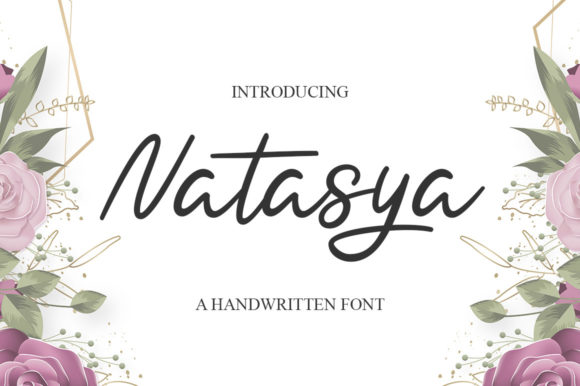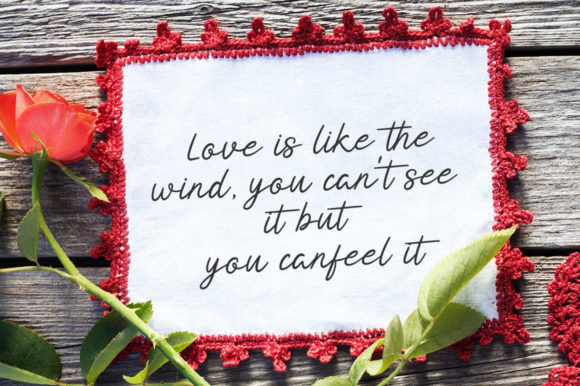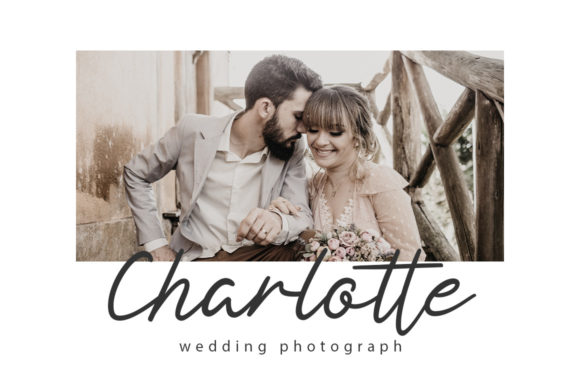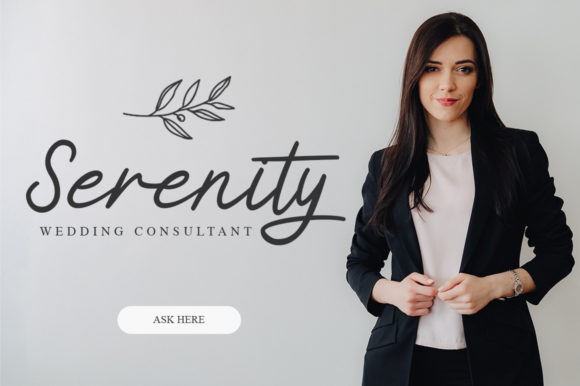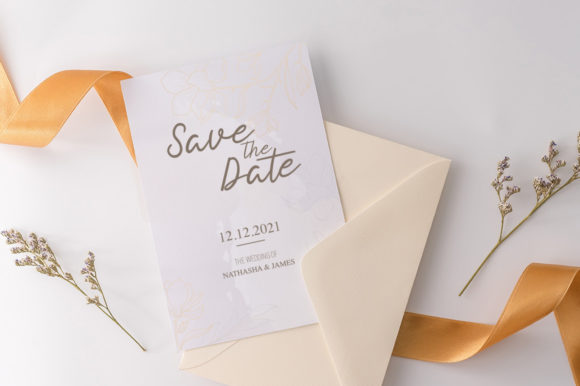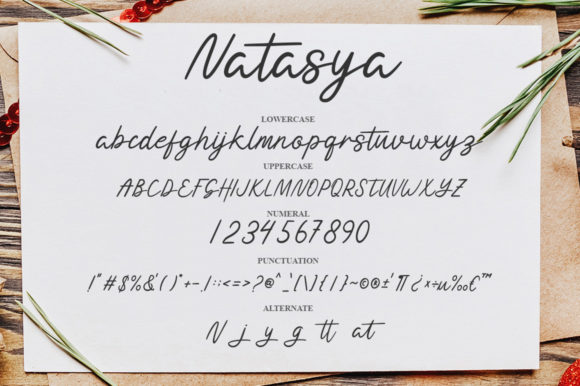
Natasya Font
About Natasya Font
Natasya is an ageless and well-designed script font. It looks refined on wedding invitations, thank you cards, quotes, greeting cards, logos, business cards and more.